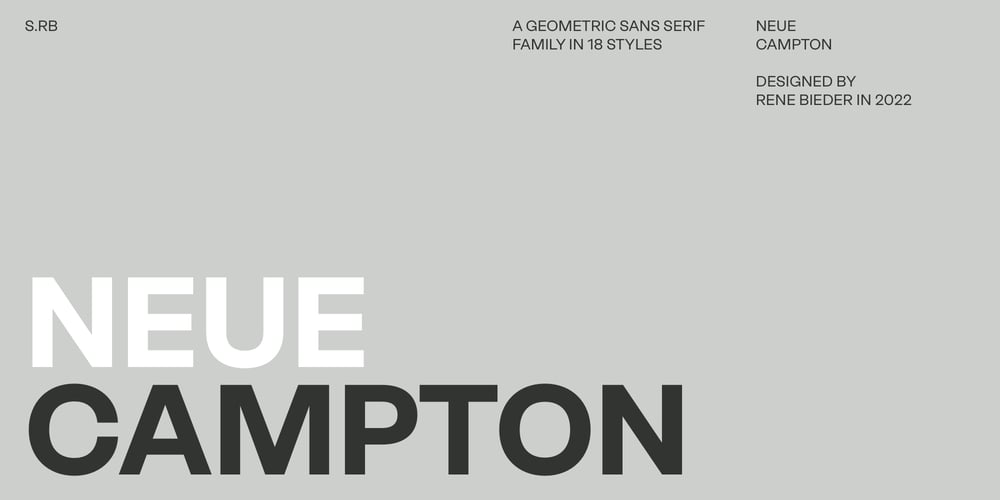
Neue Campton
Neue Campton font
Neue Campton Font Family was designed by René Bieder and published by René Bieder. Neue Campton contains 18 styles and family package options. The Campton family is a tribute to 20th-century geometrically constructed sans-serifs, such as Futura or Avant Garde. But Campton was not designed as an update of those modern classics, and does not strive for impersonal cleanness and neutrality. It is a purely contemporary creation, which represents today’s duplicity: rational yet flexible, with quirky expressiveness. Campton underwent a thorough rework in 2021/22, leading to the development of a completely revamped version based on the original concept. This latest iteration is now available as Neue Campton.